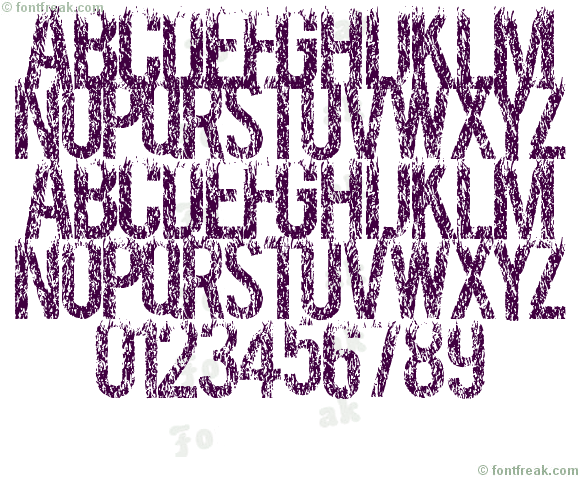
GRASSEVENT
GRASSEVENT by XEROGRAPHER FONTS is a striking display typeface that captures attention with its unique texture and style. This font is designed with a distinct, rough-edged appearance, giving it an organic, hand-crafted feel. Its character set features varied stroke weights and a playful contrast that enhances its visual appeal. The spacing between letters is carefully crafted to maintain legibility while allowing the font's decorative elements to shine, making it ideal for projects that require a touch of personality.
This versatile typeface excels in various applications. It is particularly well-suited for creative endeavors such as wedding invitations, where its rustic charm can evoke a sense of warmth and intimacy. GRASSEVENT also makes a bold statement in movie posters, perfectly capturing attention while conveying the film's unique vibe. Additionally, it can elevate restaurant menus, lending a casual yet sophisticated air that complements culinary creativity. Small business owners will find this font effective for branding materials and promotional graphics, as it embodies a friendly and approachable aesthetic.
What sets GRASSEVENT apart is its ability to blend artistic flair with practicality. Its rough texture and distinctive design give it a memorable quality, making it a standout choice for anyone seeking to make a lasting impression. For those interested in incorporating this unique style into their projects, the GRASSEVENT font free download opens the door to endless creative possibilities.